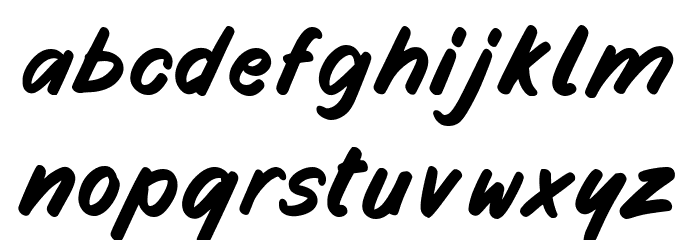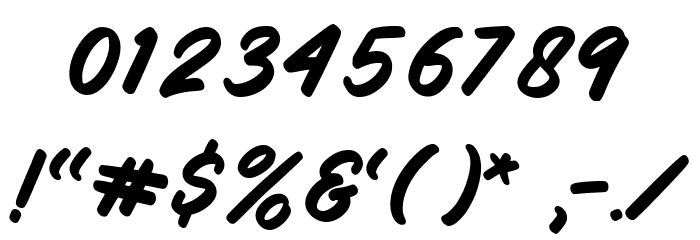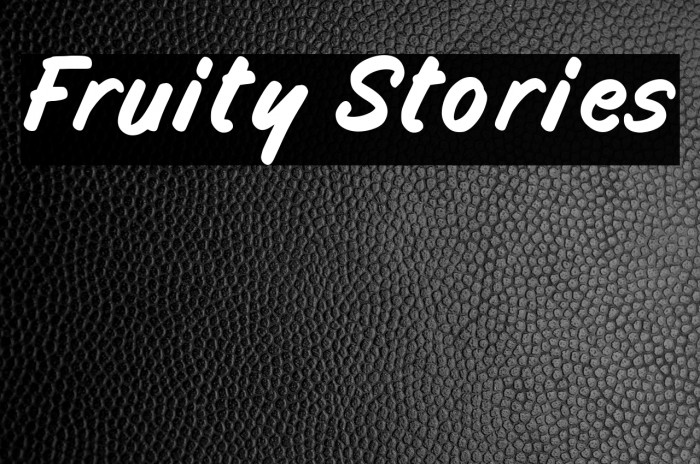
Fruity Stories Font
This playful and energetic font features bold, rounded characters with a handwritten style that exudes a sense of fun and creativity. The letters are slightly slanted, giving them a dynamic and lively appearance. The strokes are thick and consistent, providing a strong visual impact. This font includes both uppercase and lowercase letters, numerals, and a variety of special characters, making it versatile for different design needs. Its informal and friendly style makes it suitable for projects that aim to convey a sense of warmth and approachability.
A bold, handwritten-style font with rounded, playful characters.
- Proposed Projects: Ideal for children's books, playful branding, casual invitations, and creative posters.
- Overall Style: Playful